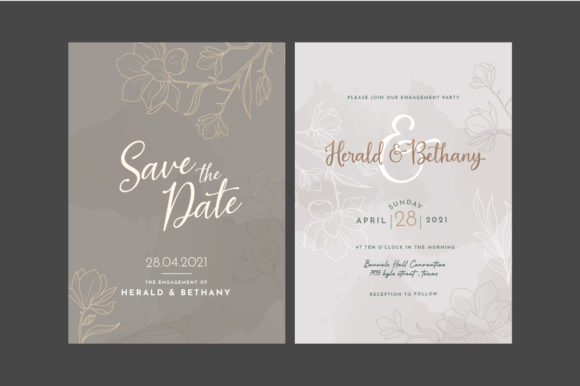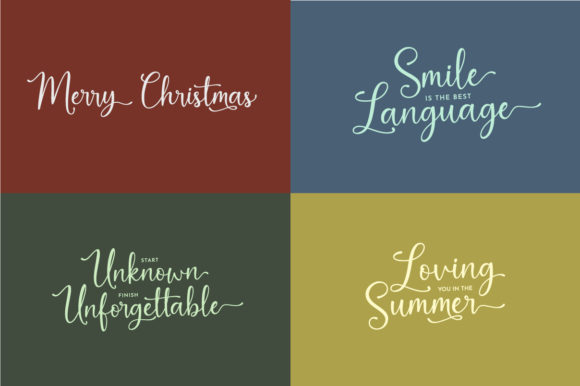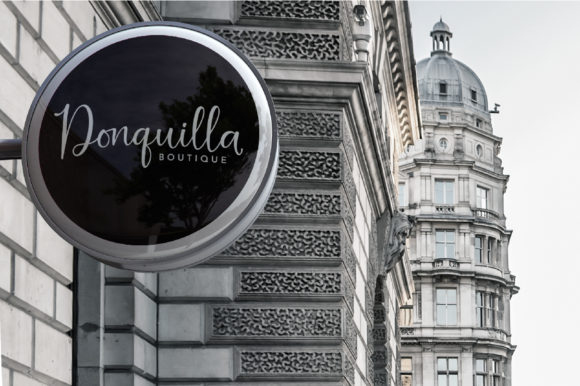
Introduction to Mallefice Font
Do you remember the moment when you’re working on a creative project and you finally find that perfect font that brings everything together? For designers, it’s like hitting the jackpot – and I’m about to introduce you to a font that’s sure to make your next project shine.
Imagine a font that’s as elegant as it is versatile, perfect for everything from wedding invitations to business cards. That’s where Mallefice Font comes in – a stunning, high-quality font that’s designed to give your designs a handwritten touch. With its smooth lines, gorgeous glyphs, and stunning alternates, Mallefice Font is a design resource that’s sure to elevate your creative projects to the next level.
Whether you’re working on a high-end design project or just need a reliable font for your next free download, Mallefice Font is a valuable asset that’s sure to deliver. And the best part? It’s available for free, making it a must-have for any designer looking to add some sophistication to their designs.
Key Features of Mallefice Font
- High-quality design with a unique aesthetic, perfect for creative projects that require a touch of elegance.
- Perfect for designers and artists looking for a high-quality, unique font to enhance their creative project.
Honest Review: Mallefice Font
I recently stumbled upon the Mallefice Font, a unique design resource that caught my attention. This creative project offers a high quality, free download that’s perfect for designers looking to add some flair to their work.
One of the standout features of the Mallefice Font is its transparent background, which makes it incredibly versatile. I love that I can use it for both digital and print projects without worrying about any background clutter.
- ✨ Unique and creative design style
- ✨ High quality font files
However, I do have a few reservations:
- ⚠️ Limited font family options
- ⚠️ Not ideal for large-scale text
Overall, I’m impressed with the Mallefice Font. While it may not be perfect for every project, it’s a valuable design resource that’s worth checking out. Whether you’re a seasoned designer or just starting out, this font is sure to add some creativity to your work.
Mallefice Font
The Mallefice Font is a high-quality, free download design resource ideal for creative projects requiring a unique and stylish touch. With its transparent background, this font can be easily integrated into various design tools.
Tips and Best Practices
To get the most out of the Mallefice Font, use it for titles, headings, and other prominent text elements. Experiment with different font sizes, colors, and styles to achieve the desired look. You can also combine the Mallefice Font with other design elements, such as graphics and images, to create visually appealing designs.
The Mallefice Font is ideal for creative projects, such as:
- UI/UX design